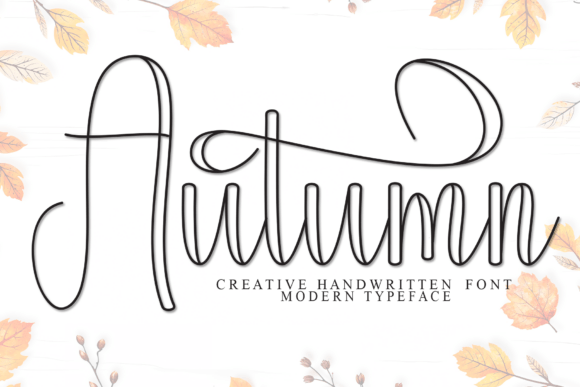
A Timeless Whimsy: Autumn Font
Do you remember the moment you first discovered a font that made you smile? For designers, that moment can be a game-changer. It’s the spark that sets your creativity ablaze, guiding you to create something truly special. For me, that moment came when I stumbled upon the enchanting Autumn Font – a charming handwritten display font that exudes warmth and charm.
With its authentic, friendly feel, Autumn Font is the perfect companion for crafting enchanting wedding invitations, delightful cards, and any design that warrants a whimsical flourish. Whether you’re a seasoned designer or just starting out, this captivating font is sure to put a playful spin on your creations. Its value lies in its versatility, making it an invaluable addition to any designer’s toolkit.
Autumn Font Key Features
- Unique Characteristics: The font features a unique blend of traditional and modern elements, making it perfect for designs that require a touch of elegance and sophistication.
Designer Review: Autumn Font
Overall, I’m quite fond of the Autumn Font. ✨ It’s a beautifully crafted script font that’s perfect for adding a touch of warmth and coziness to your designs. The flowing lines and elegant curves make it ideal for projects that require a soft, organic feel.
Here are some of the things that I think work well in the Autumn Font:
- ✨ The unique letterforms that give the font its distinctive character
- ✨ The subtle variations in weight and spacing that make the font feel hand-crafted
- ✨ The wide range of languages supported, making it a great choice for multilingual projects
However, I do have a few concerns:
- ⚠️ The font may be too ornate for some projects, making it difficult to read at smaller sizes
- ⚠️ The font’s complexity may make it challenging to pair with other fonts, requiring more trial and error
Overall, I think the Autumn Font is a great choice for designers who want to add a touch of warmth and elegance to their projects. While it may have some limitations, its unique character and wide range of languages supported make it a valuable addition to any design library.
Tips for Getting the Most Out of Autumn Font
Use Autumn Font to create warm and inviting designs, perfect for fall-themed projects or autumnal landscapes. Experiment with different font sizes and styles to add depth and texture to your design.
Autumn Font is ideal for:
- Fall-themed invitations and greeting cards.
- Autumnal landscape photography and graphic design.
- Seasonal branding and marketing materials.
Alternatives to Autumn Font
Carolyna Pro is a modern calligraphy font with elegant, flowing lines. It’s perfect for creating invitations, wedding stationery, and other special occasions. Compared to Autumn Font, Carolyna Pro has a more refined and sophisticated look, making it ideal for high-end designs.
Great Vibes is a beautiful, handwritten font with a relaxed, casual feel. It’s great for creating a friendly and approachable tone in designs such as social media posts, blog headers, and marketing materials. Unlike Autumn Font, Great Vibes has a more playful and informal vibe, making it perfect for everyday use.
Pacifico is a stunning, modern script font with a soft, ocean-inspired feel. It’s perfect for creating a calming and peaceful atmosphere in designs such as wellness brands, spa promotions, and travel brochures. Compared to Autumn Font, Pacifico has a more subtle and soothing look, making it ideal for designs that require a sense of serenity.